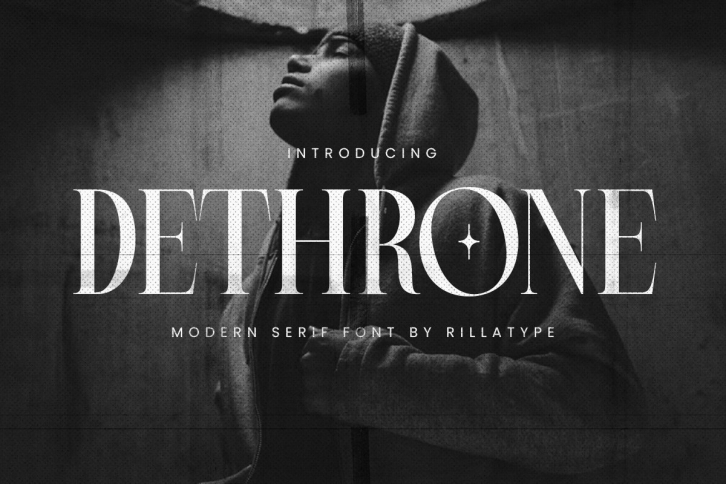
Dethrone is a gorgeous font that was realeased on April 19, 2022. The font can be used in many style contexts and design environments. Perfect for invitations, magazines, websites, logos, and more! It was designed by Rillatype and the file size is 9.94 MB. Thanks for checking out this font!